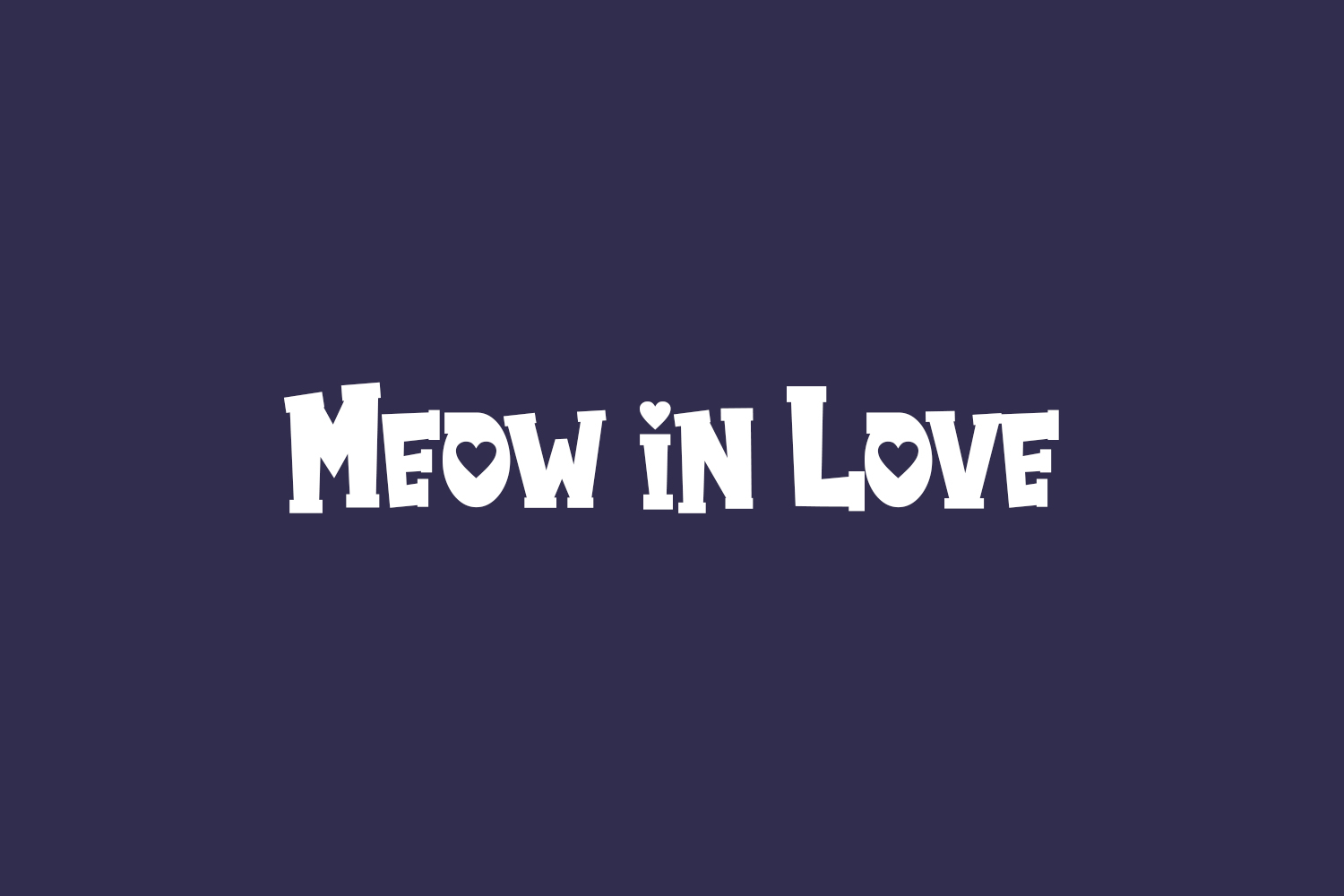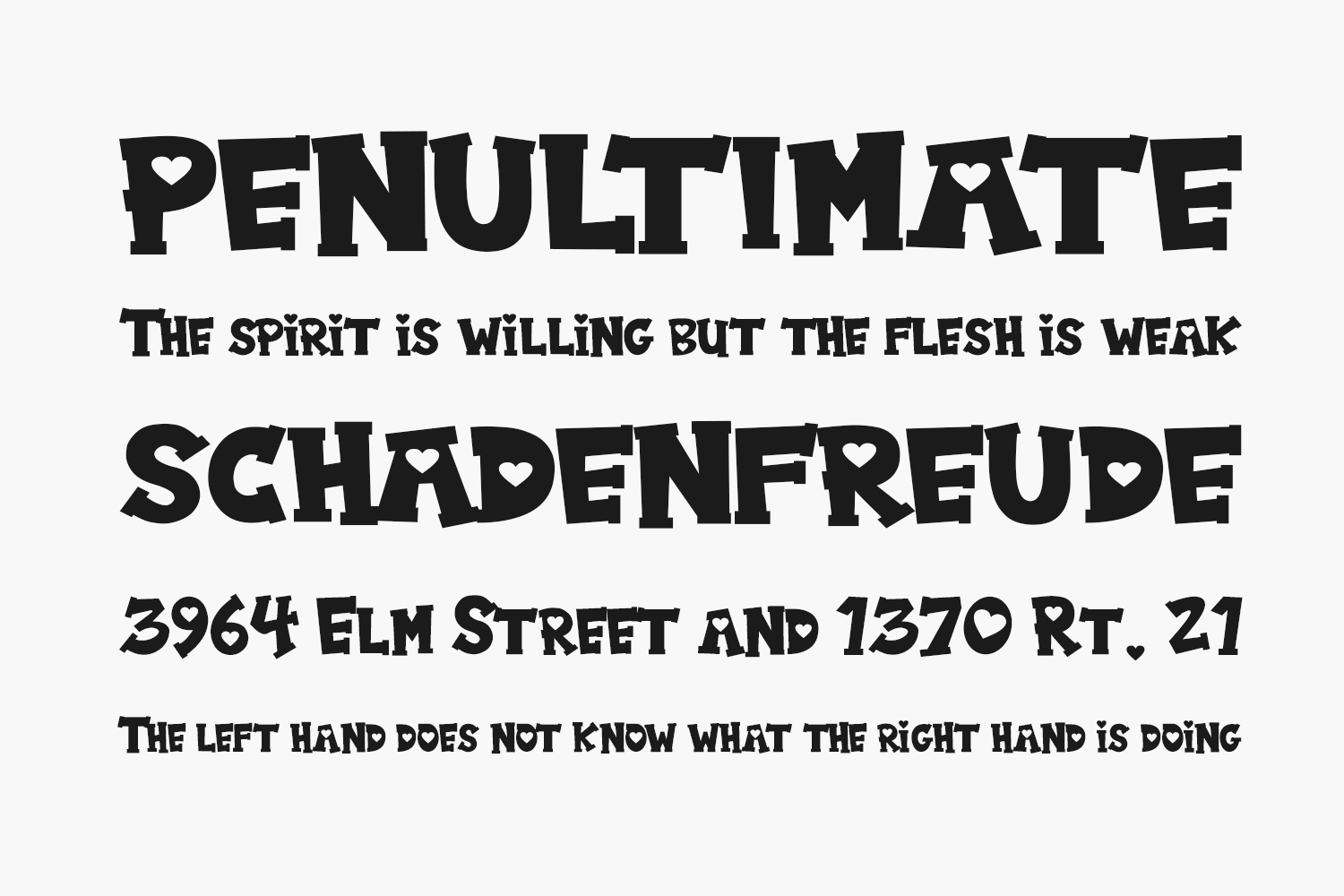
Meow in Love Free Font is a bold and colorful display font. Its friendly feel makes this font incredibly versatile, fitting a wide range of contexts. Meow in Love Free Font was designed by Fachranheit and is free for personal use only. Please purchase the full version for commercial use.